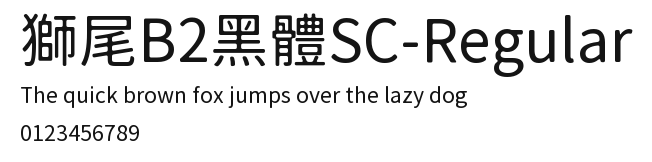
獅尾B2黑體SC-Regular Preview
About 獅尾B2黑體SC-Regular.ttf
獅尾B2黑體SC-Regular.ttf is a modern, elegant sans-serif font designed for ultimate readability and visual harmony. Perfect for branding, headlines, web design, and print materials.